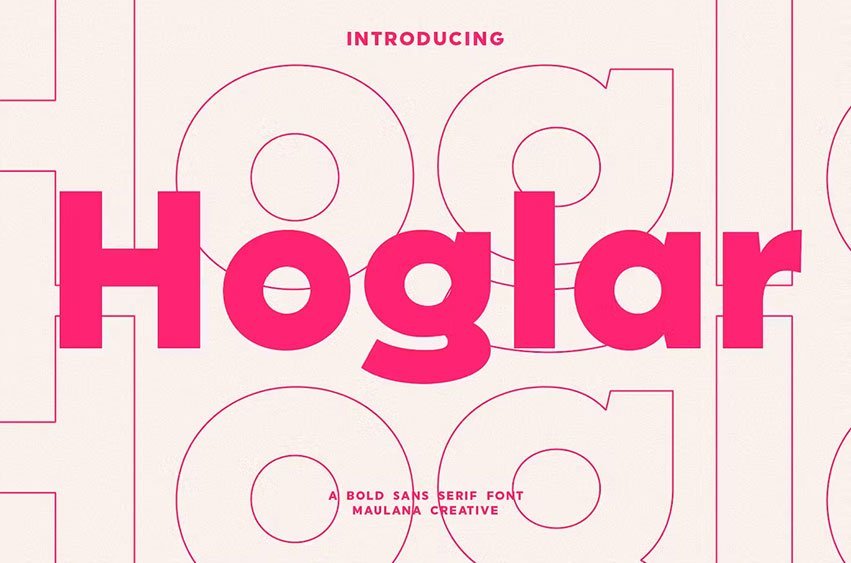
Hoglar Font is a modern sans serif font. With bold stroke, fun character with a bit of ligatures and alternates. To give you an extra creative work. Hoglar font support multilingual more than 100+ language. This font is good for logo design, Social media, Movie Titles, Books Titles, a short text even a long text letter and good for your secondary text font with sans or serif. Make a stunning work with Hoglar font.